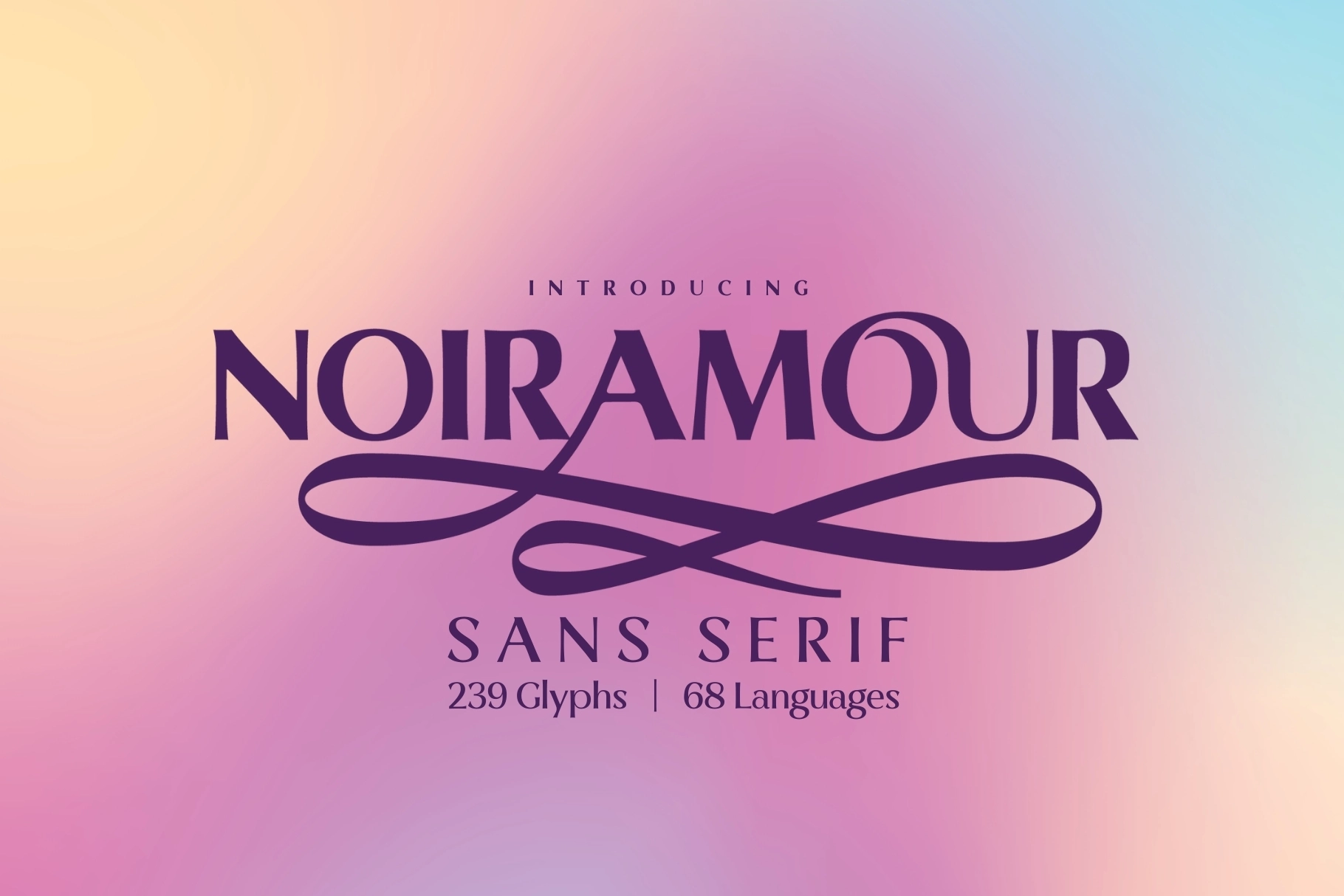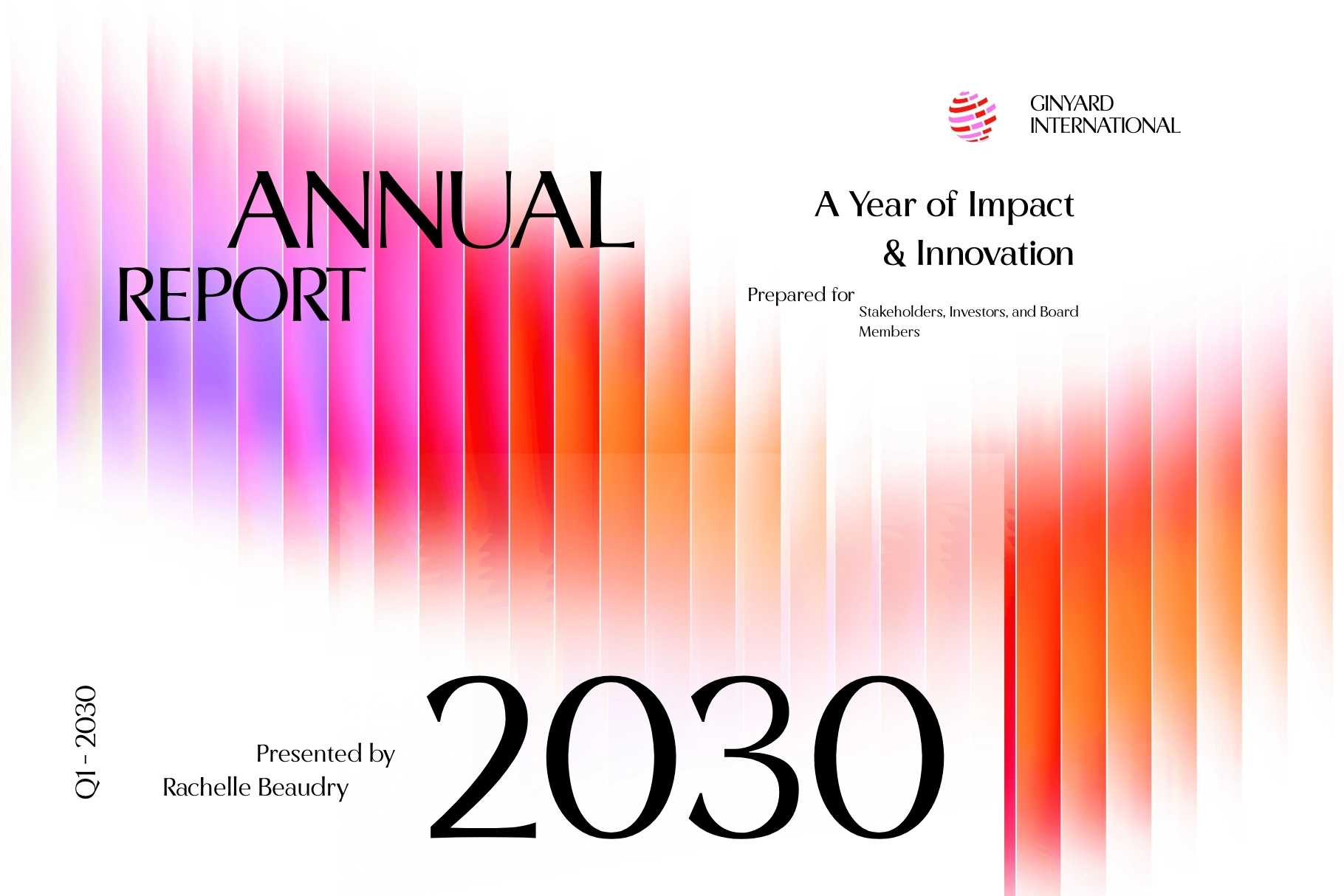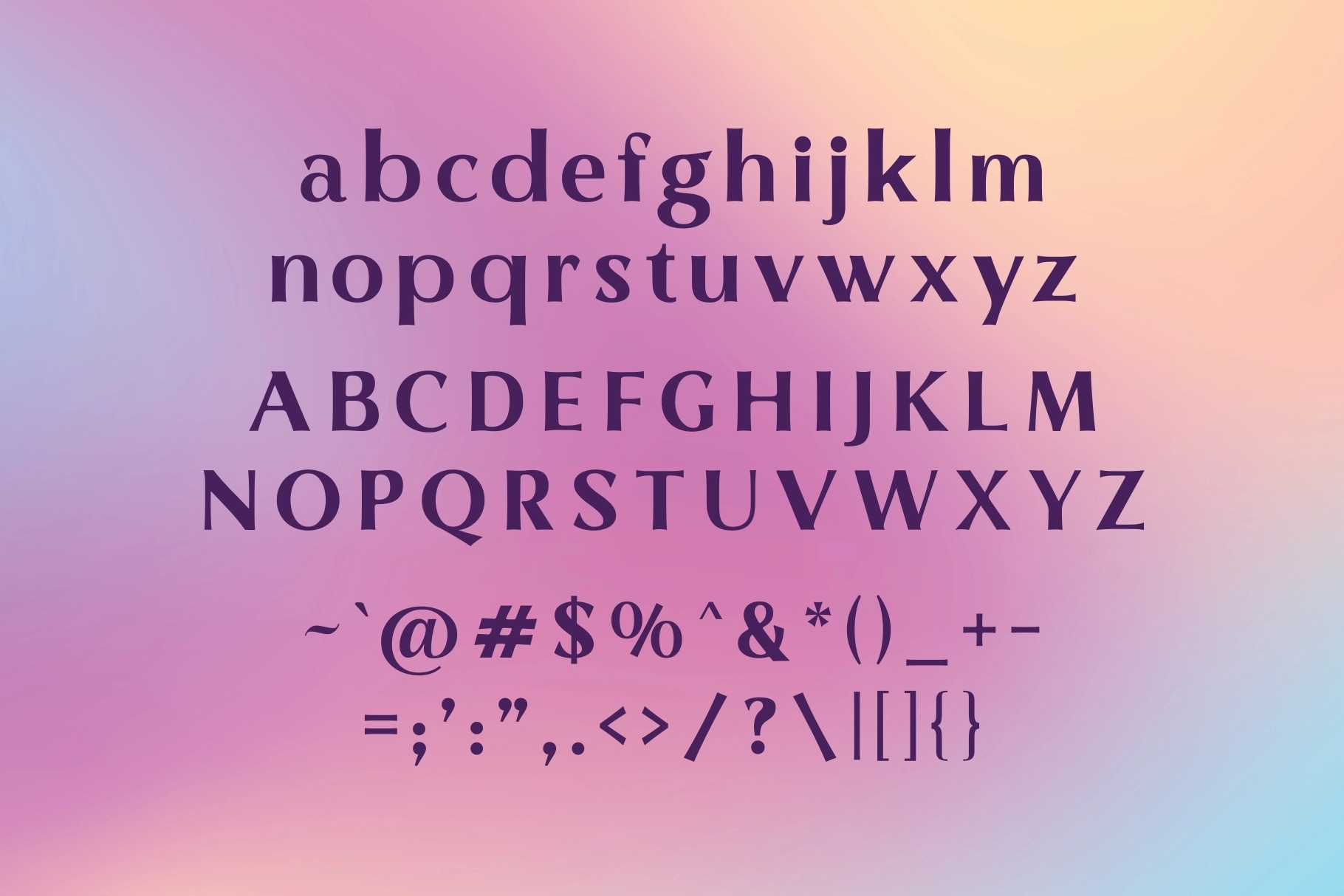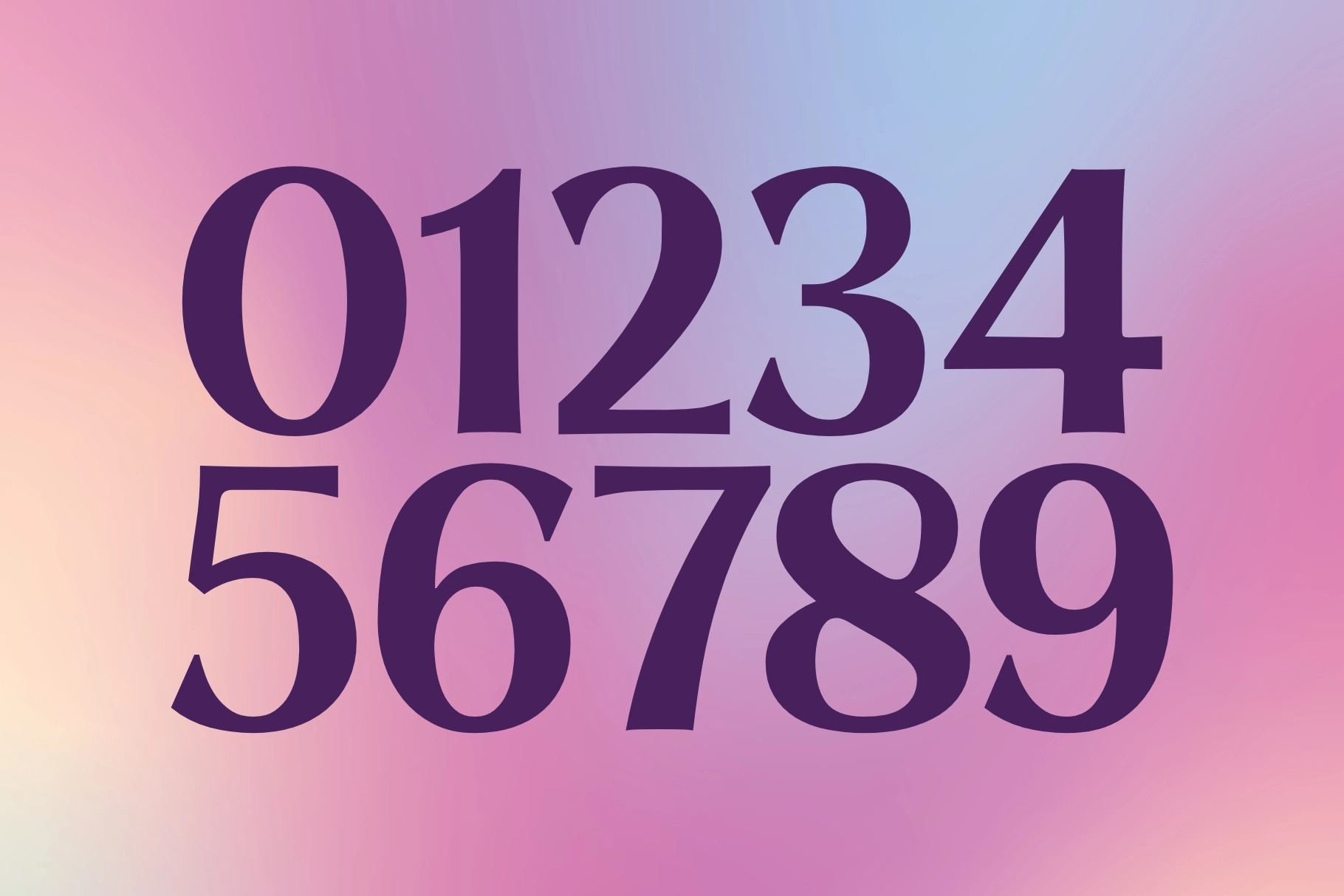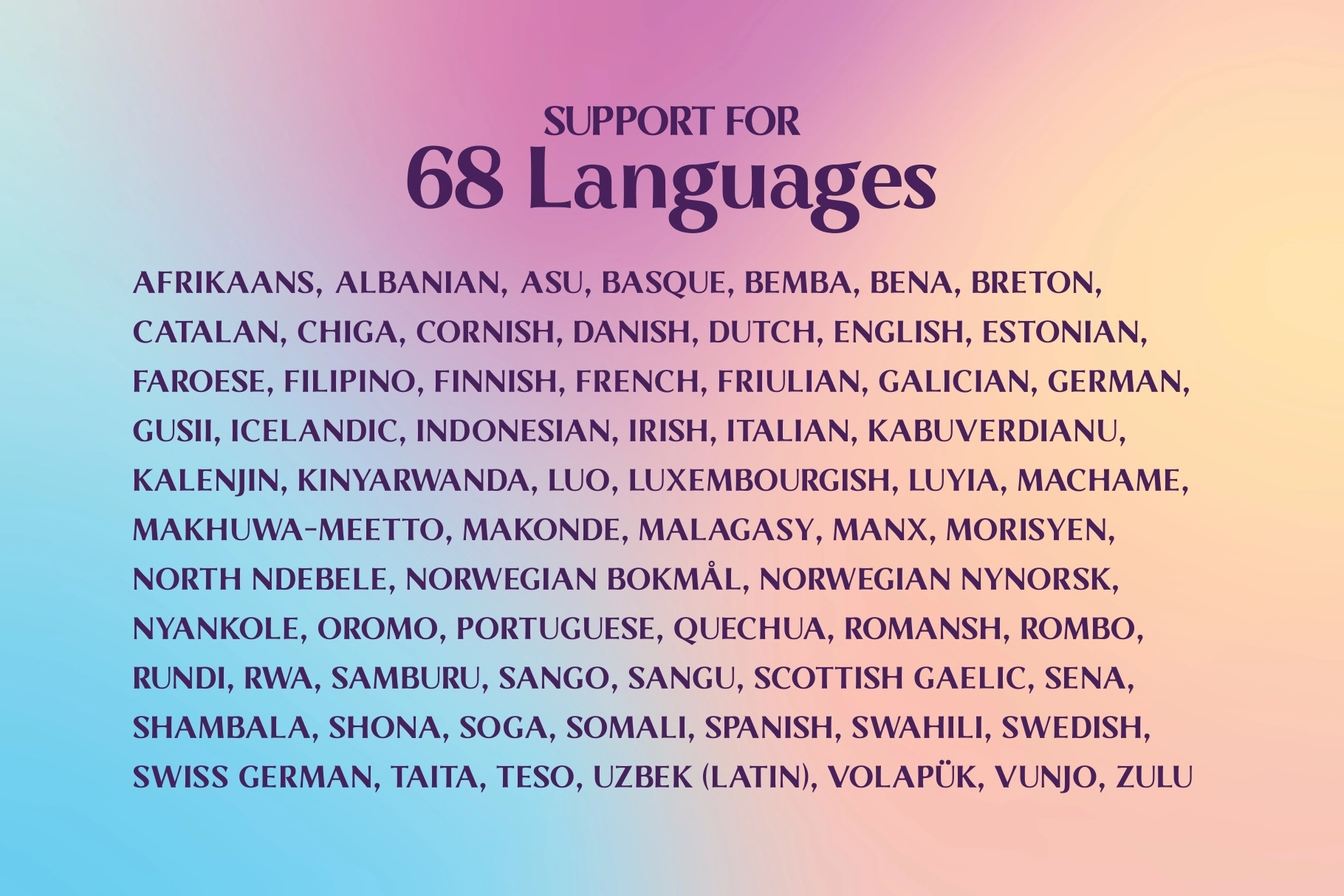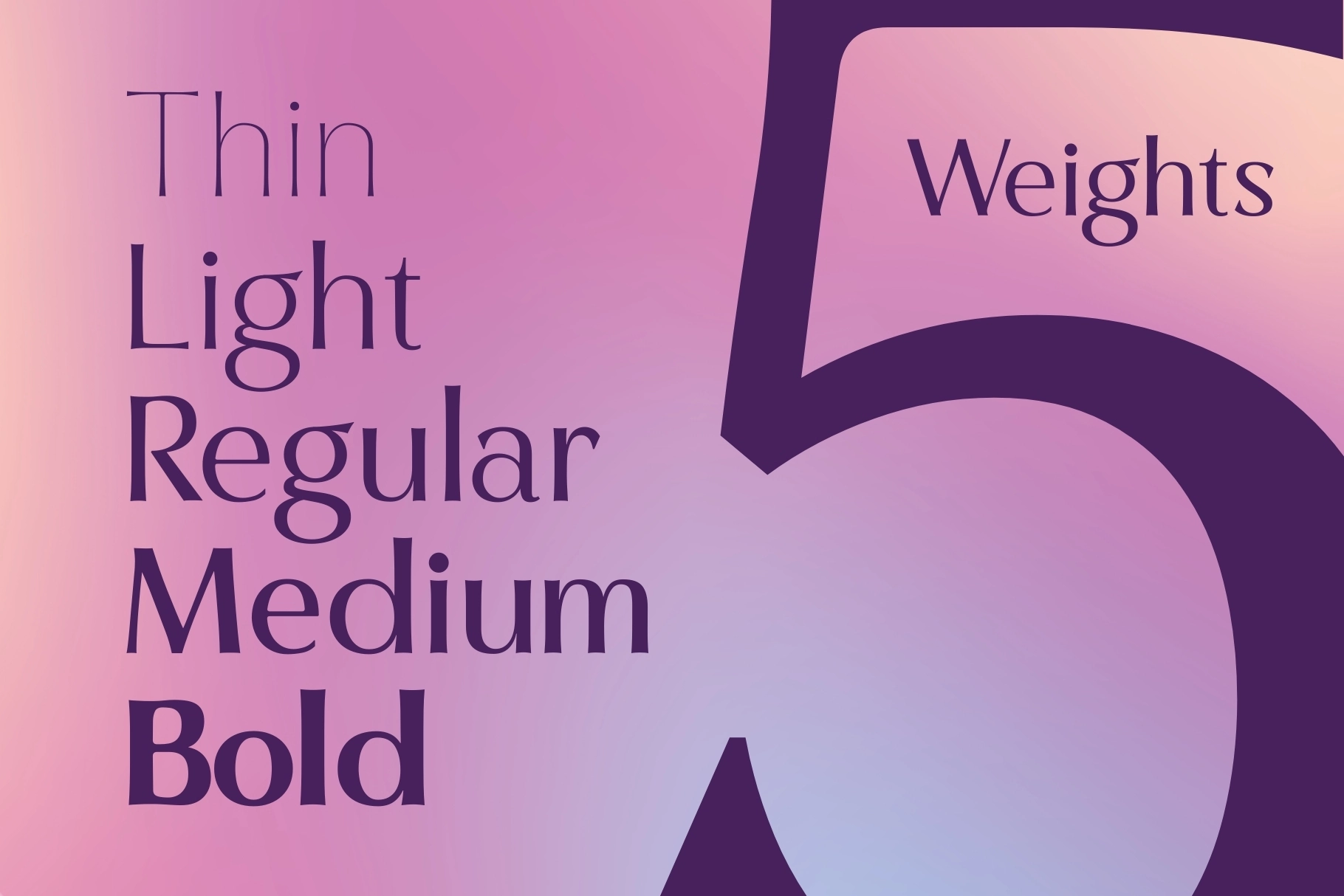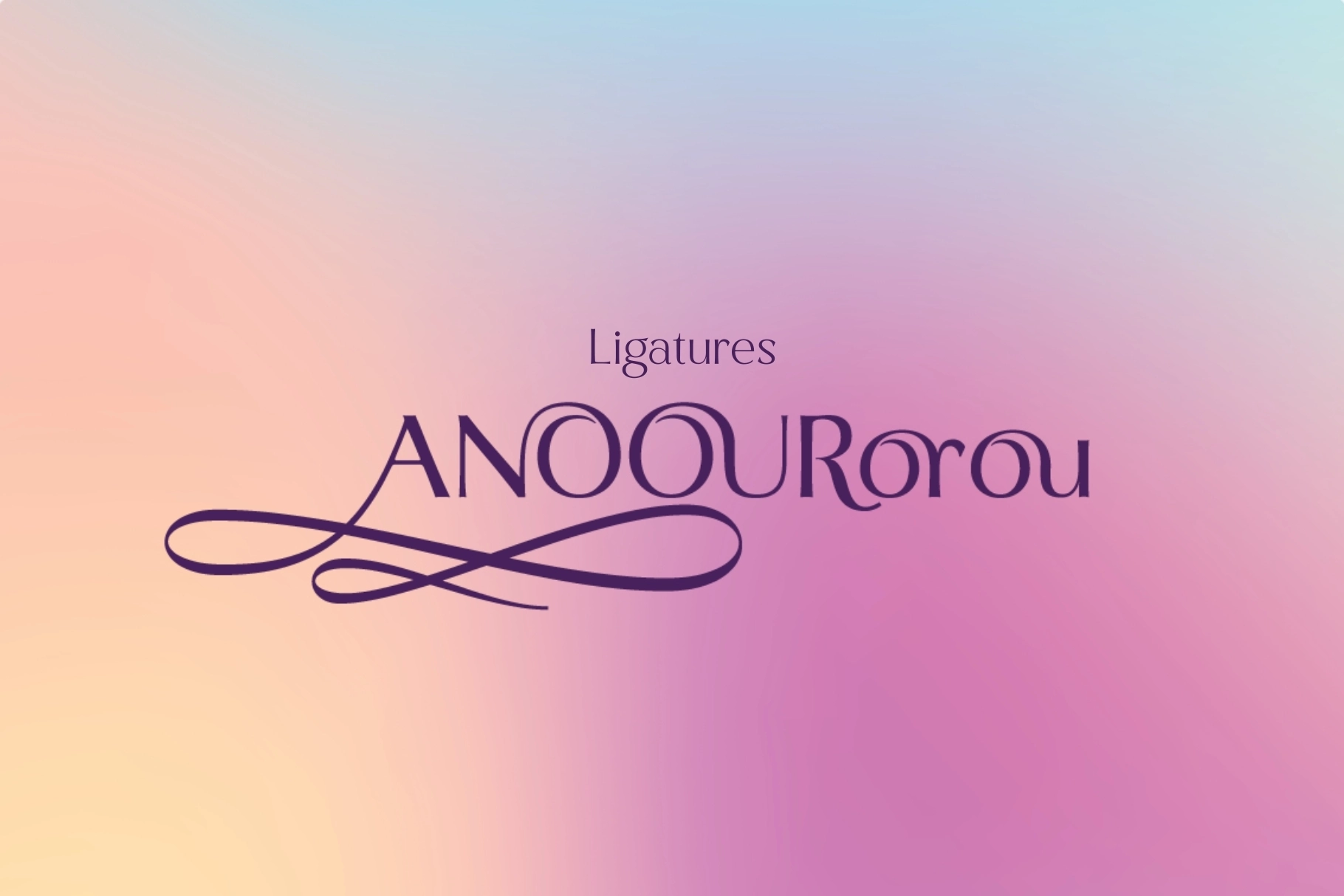
Noir Amour - Sans Serif Typeface
Noir Amour is a versatile sans serif typeface designed for clarity, elegance, and professional quality in branding, editorial, web design, and packaging. With five adaptable weights (Thin, Light, Regular, Medium, Bold), it fits projects ranging from minimal to bold styles. The typeface offers 239 glyphs, supports 68 languages, and features clean geometry and subtle curves for a modern, dependable look. Ideal for high-end brands, design studios, and creators seeking both beauty and reliability in headlines, logos, or text.